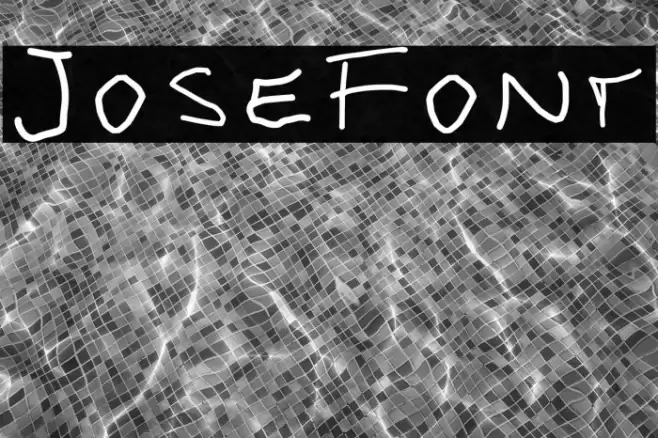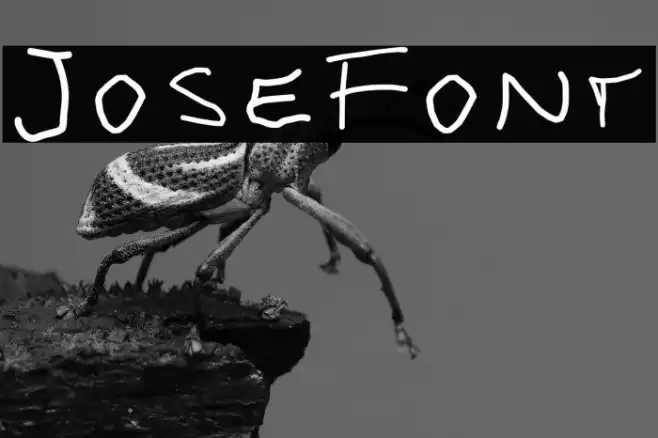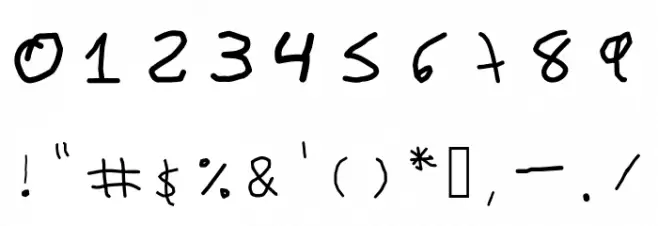
Jose Font
Jose Description
This font features a playful and casual handwritten style, characterized by its irregular strokes and slightly uneven baseline. The letters have a whimsical quality, with varying thickness and a natural, free-flowing appearance. The uppercase and lowercase letters maintain a consistent style, while the numerals and special characters complement the overall design. This font exudes a sense of informality and creativity, making it suitable for projects that require a personal touch. The strokes are moderately thick, providing good readability while retaining the charm of hand-drawn text.
A playful, handwritten font with irregular strokes and a casual style from Handwritten fonts.
- Proposed Projects: Ideal for greeting cards, children's books, casual invitations, and creative branding.
- Overall Style: Casual, Playful
- Use Case: Headlines, Logos, Informal Text